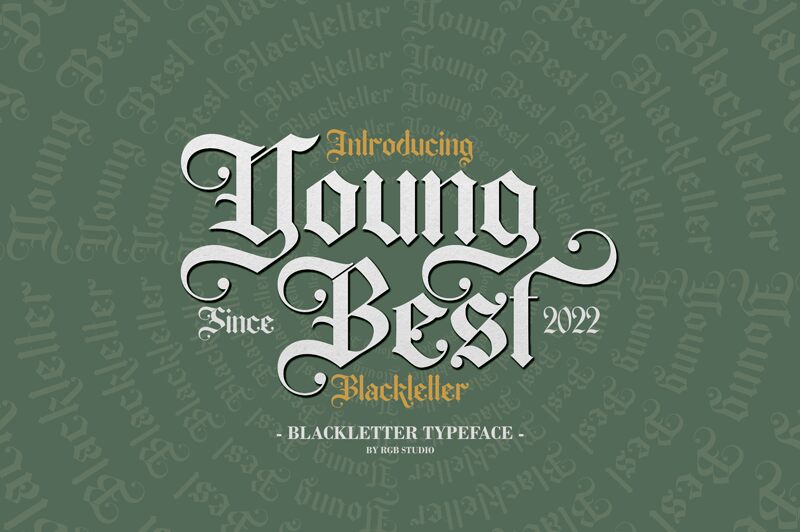
Young Best font by RGB Studio is a gothic typeface inspired by Blackletter and medieval styles. Combining a modern impression with strong, unique elements, it maintains an ornate and historic feel. This font exudes a traditional aesthetic with a dramatic presence, making it ideal for designs requiring an impactful and distinctive appearance.
This free gothic font is perfect for headlines, posters, book covers, magazine layouts, branding projects, packaging designs, logos, apparel design, greeting cards, invitations, or tattoos that need a touch of traditional elegance.
Young Best